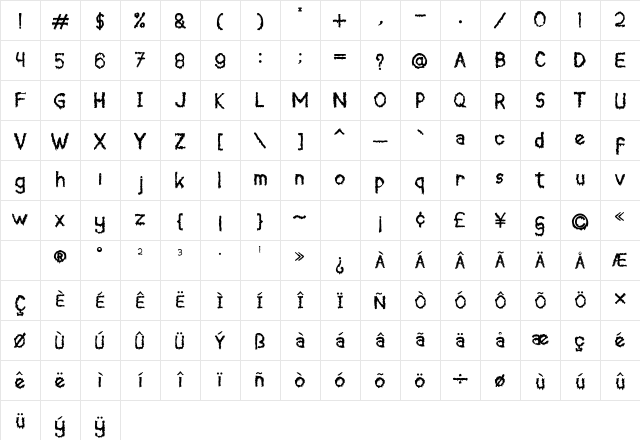
Creepy Forest Regular
Design Context for Creepy Forest Typeface
Creepy Forest carries an unsettling edge — its distorted letterforms are built to unsettle, perfectly suited to horror, Halloween, and dark creative work.
Perfect for anything that needs to unsettle — game titles, horror branding, and macabre invitations.
Font Pairing: Pair with a clean neutral sans-serif for body copy to let Creepy Forest's character lead without overwhelming the composition.
Pro Tip: Use Creepy Forest at larger display sizes for maximum impact. Consider generous tracking to let the disturbing character of each letterform breathe.